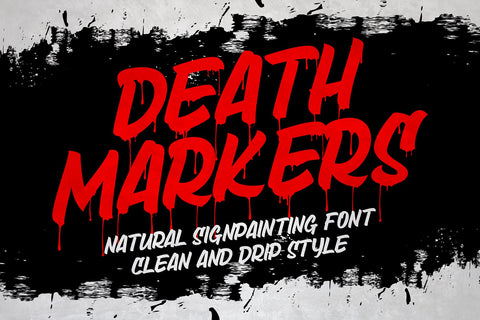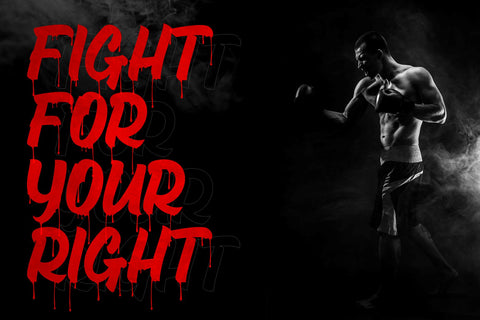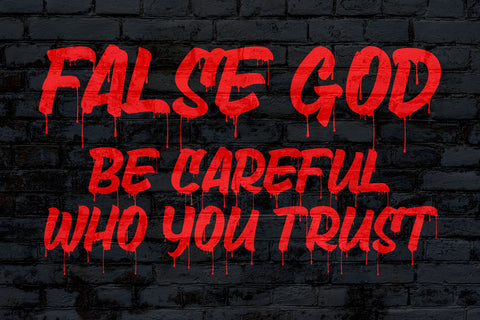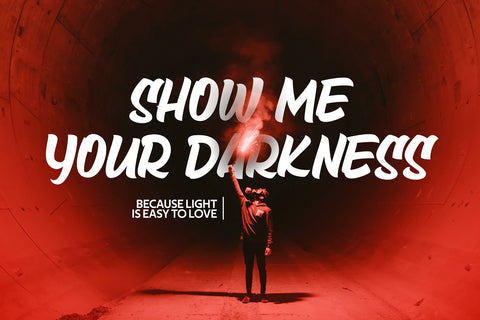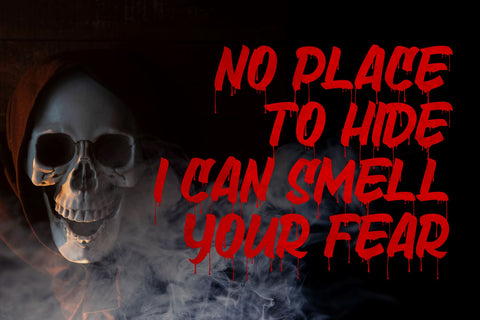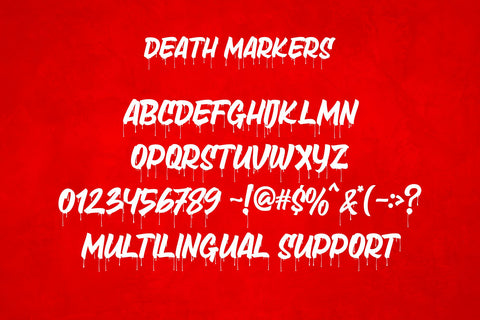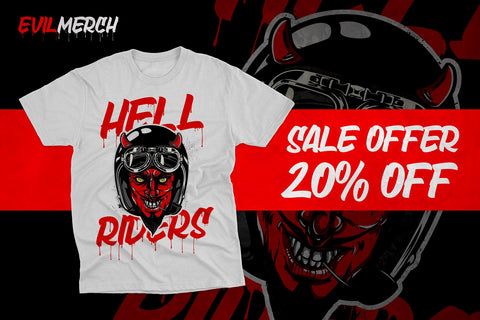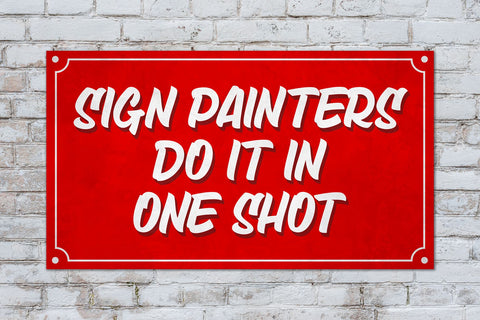
Death Markers - Natural Sign-painting Font
Everyone who lives will surely die
Death Markers is a natural brush font, inspired by a vintage aesthetic sign painting. Made in combination with hand lettering, it comes with dramatic movement and it’s great for any next creative project that needs a retro vibe and horror touch. It comes in 2 styles: Clean and Drip effect.
Ideal for logos, handwritten quotes, product packaging, header, poster, merchandise, social media & greeting cards.
- All Caps
- Numbers and Punctuation Marks
- Support Multilanguage